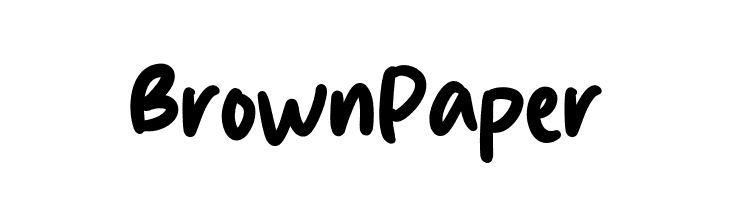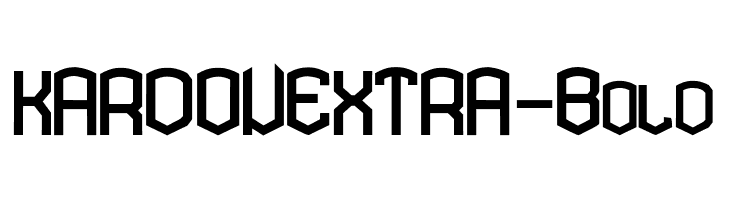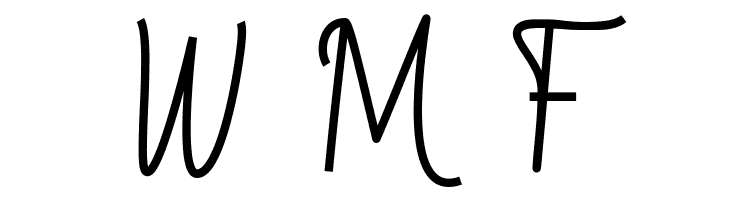
A bold, expressive script font with flowing, connected strokes.
A bold, brush-stroke font with an artistic and expressive style.
A modern, geometric font with a futuristic and tech-inspired design.
A playful, bunny-themed decorative font with bold, rounded characters.
A dynamic, handwritten cursive font with elegant slant and varied stroke thickness.
A sophisticated, flowing script font with elegant cursive letterforms.
A bold, outlined, italic font with a geometric and dynamic style.
A bold, decorative font with intricate details and flourishes.
A tall, slender sans-serif font with a modern and elegant design.
An elegant, flowing script font with a sophisticated, handwritten style.